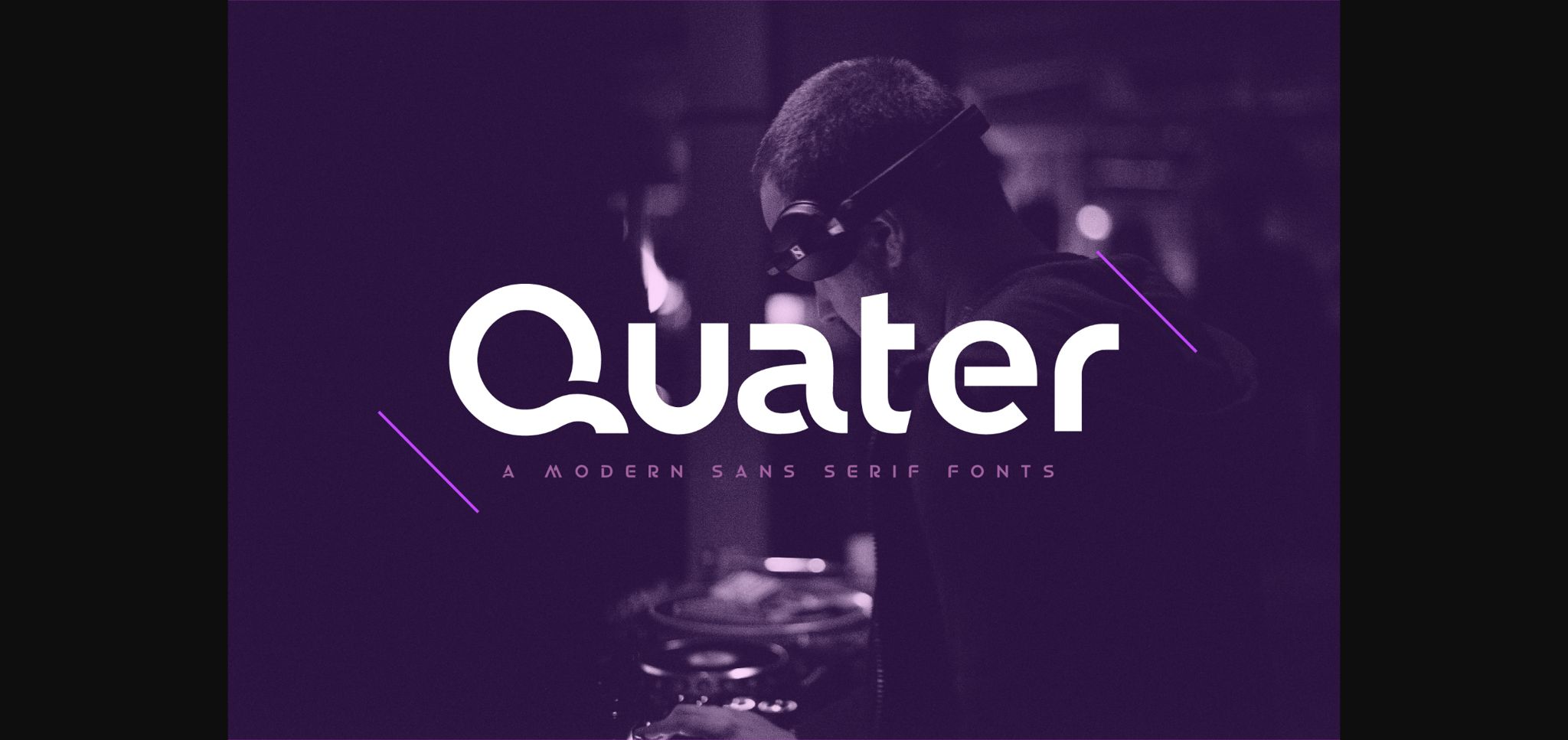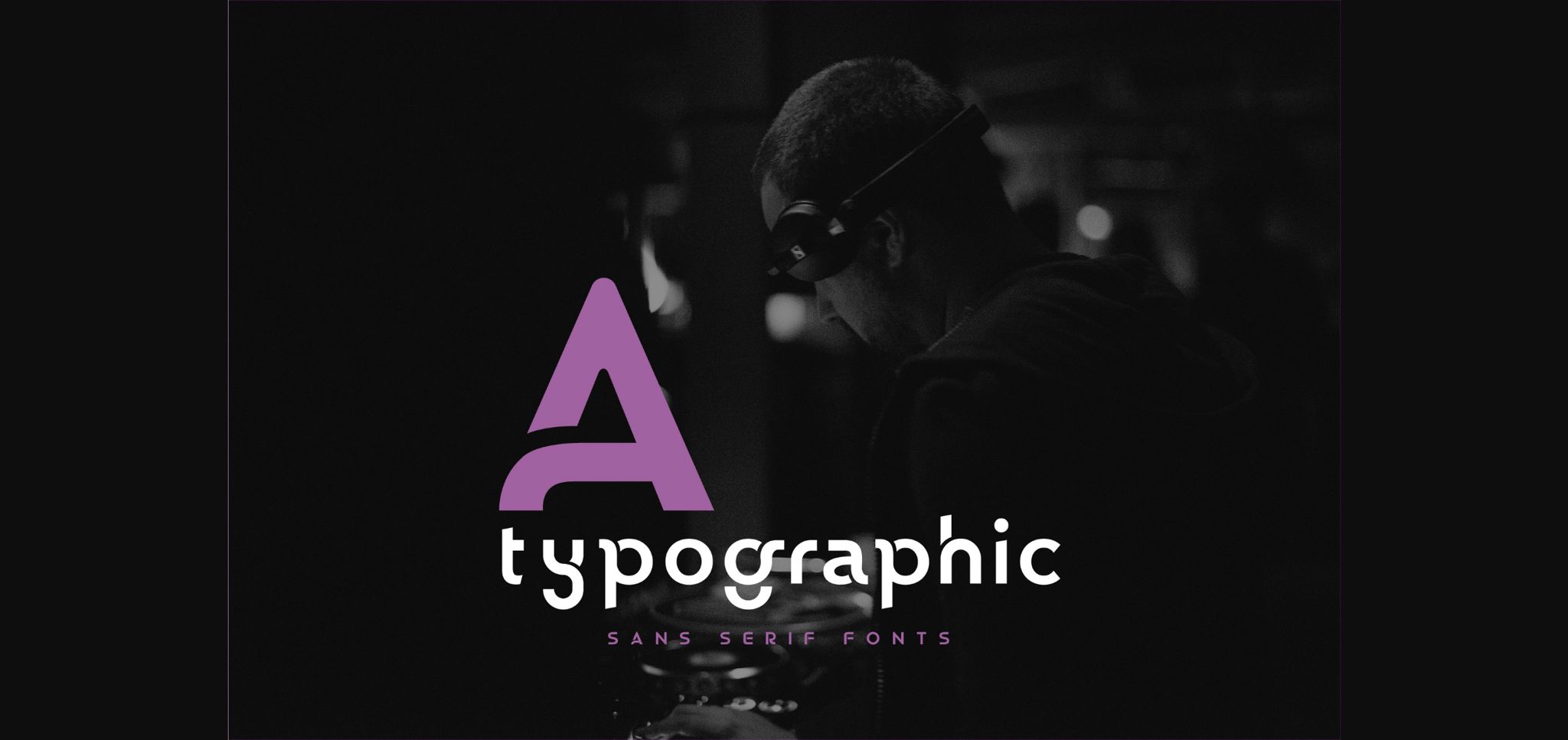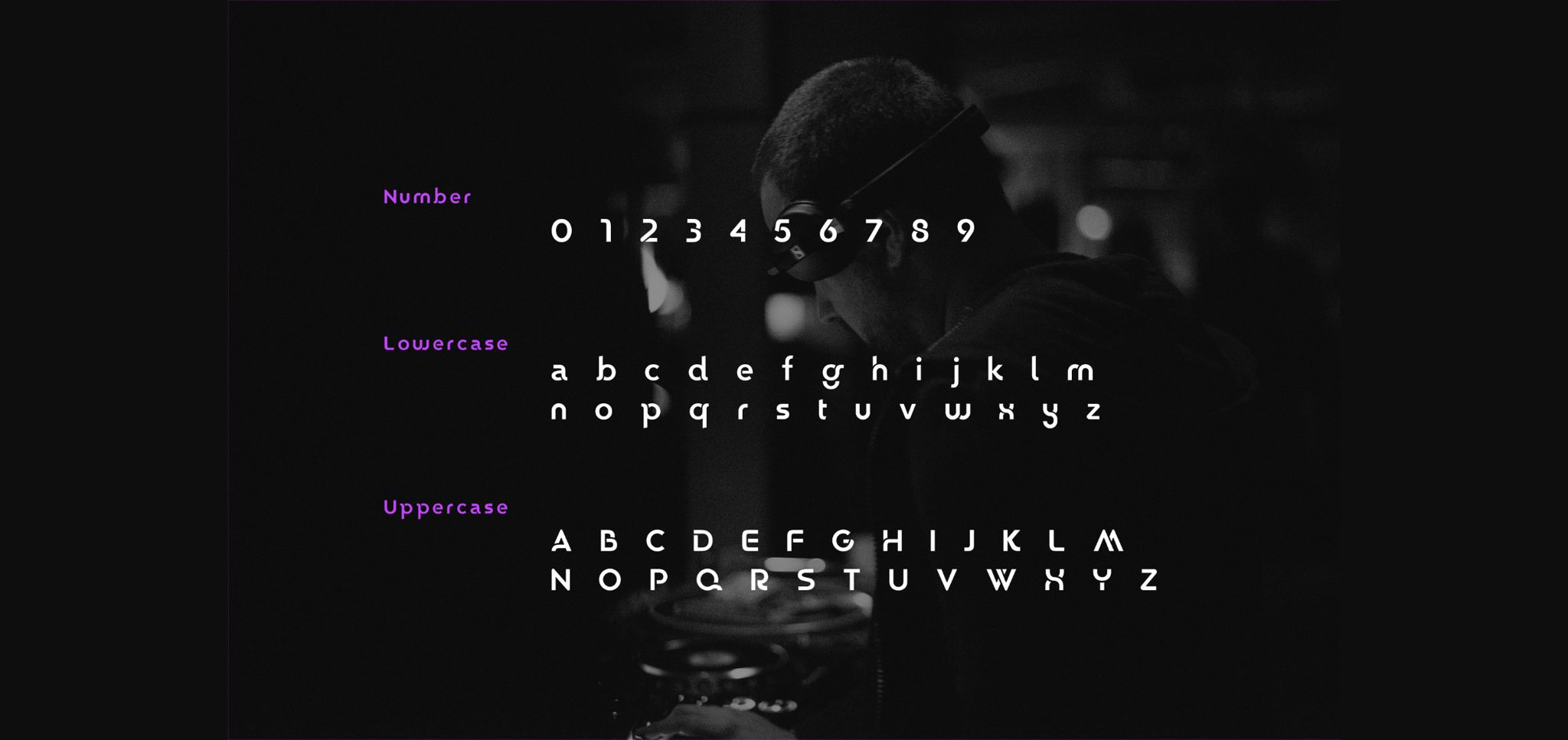
About Quater Font
Quater is a fancy, contemporary sans serif font. Its casual charm makes it appear wonderfully down-to-earth, readable and, ultimately, incredibly versatile. Quater will look outstanding in any context, whether it’s being used on busy backgrounds or as a standalone headline!